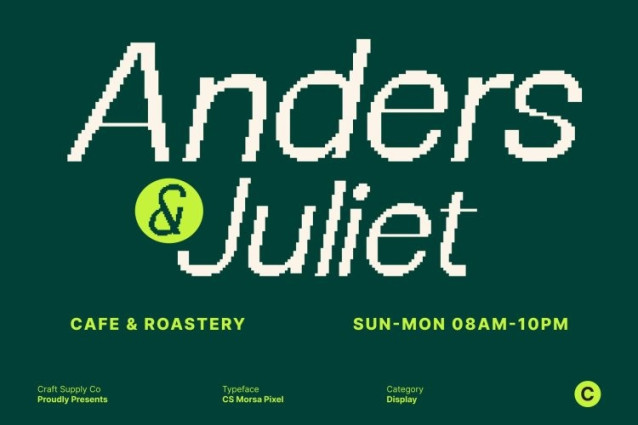
CS Morsa Pixel Font
CS Morsa Pixel Font This is a modern sans serif font designed with a hybrid pixel approach that blends clean structure with contemporary digital style. Its carefully balanced construction delivers a professional appearance while the pixel-based execution adds a modern, screen-ready character. The result is a typeface that feels confident, refined, and perfectly suited for today’s digital environments.
Clean Pixel Forms with Stylish Flexibility
Built from crisp pixel geometry and thoughtful proportions, this font offers excellent readability across digital layouts. Subtle stylistic nuances prevent it from feeling rigid or mechanical, allowing the design to remain visually engaging. This balance between clarity and personality makes adaptable for both clean corporate visuals and expressive creative compositions.
Professional Tone with Modern Pixel Character
This font communicates professionalism through its structured forms while maintaining a contemporary, stylish edge. Its pixel construction gives it a modern-tech feel without overwhelming the design, making it ideal for headlines, subheadings, interfaces, and supporting text. The font supports flexible layouts and modern visual storytelling with ease.
Perfect for Branding, Editorials, and Digital Projects
Designed for versatile modern use, excels in branding, posters, editorials, and digital-focused creative projects. Its hybrid pixel sans serif style works beautifully for modern brands, tech visuals, UI-inspired layouts, campaigns, and promotional materials delivering clarity, confidence, and stylish digital presence.